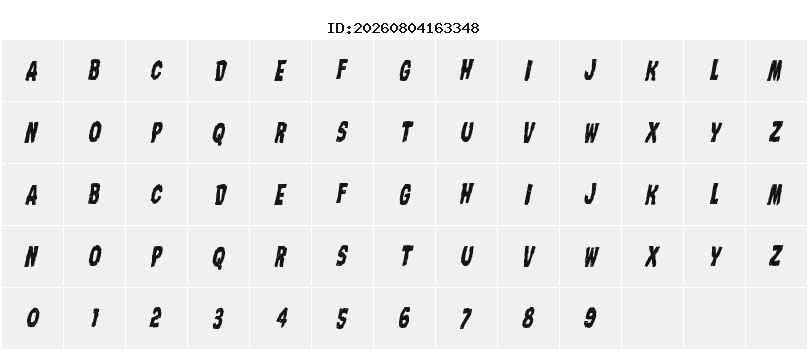
Nightmare Alley Condensed Italic Preview
• Font Name: Nightmare Alley Condensed Italic
• Font Style: Condensed Italic
• Full Font Name: Nightmare Alley Condensed Italic
About Nightmare Alley Condensed Italic.ttf
Nightmare Alley Condensed Italic.ttf is a modern, elegant sans-serif font designed for ultimate readability and visual harmony. Perfect for branding, headlines, web design, and print materials.